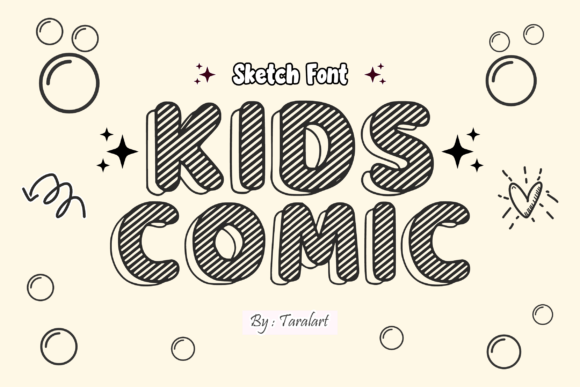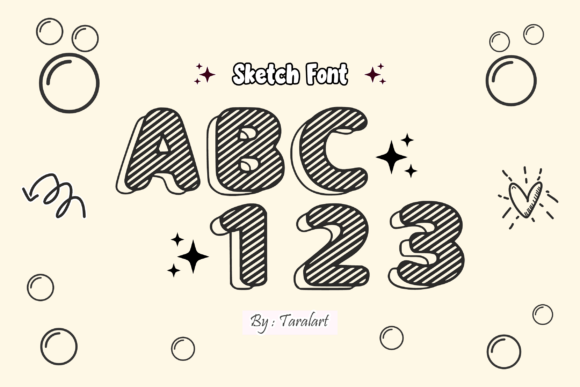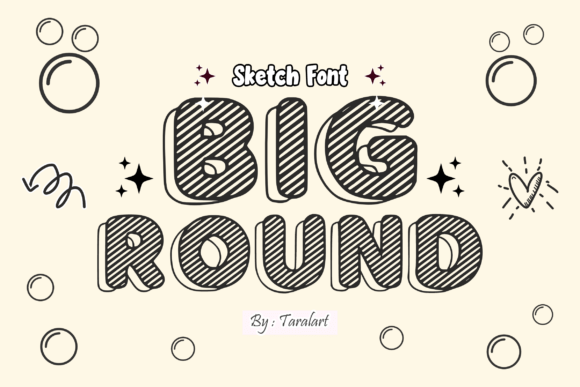
Introducing Biground Regular Font: The Ultimate Choice for Creative Designs
In the world of typography, fonts play a crucial role in conveying the tone and personality of a design. For designers and crafters looking for a unique and playful typeface, Biground Regular Font is an excellent choice. This avant-garde, ornamental font is specifically designed for the younger audience, making it perfect for a wide range of creative applications.
The Charm of Biground Regular Font
Every single character in Biground Regular Font exudes an adorable aura, making them instantly identifiable. The font’s distinctive design is characterized by its rounded edges, smooth curves, and endearing appearance. This charming font is sure to capture the attention of your audience and leave a lasting impression.
Ideal Applications for Biground Regular Font
Biground Regular Font is incredibly versatile and can be used in various design projects, including:
- Heat Transfer Designs: Create stunning apparel designs for t-shirts, hoodies, and other clothing items using Biground Regular Font. The font’s playful design ensures that your heat transfer designs will stand out.
- Ceramics and Mugs: Add a personal touch to ceramics like mugs, plates, and bowls with Biground Regular Font. The font’s adorable design makes it perfect for creating unique and functional items.
- Fabrics and Tote Bags: Design eye-catching tote bags, scarves, and other fabric products using Biground Regular Font. The font’s smooth curves and rounded edges ensure a beautiful and professional finish.
- Animations and Comic Book Titles: Biground Regular Font is an excellent choice for animations, comic book titles, and graphic novels. The font’s playful design adds a touch of excitement and energy to your project.
- Web Banners and Kids’ Greeting Cards: Create engaging web banners and kids’ greeting cards using Biground Regular Font. The font’s charming design is sure to delight your audience and make your design stand out.
Unleash Your Creativity with Biground Regular Font
Biground Regular Font offers endless possibilities for designers and crafters. With its unique and playful design, this font is perfect for:
- Kids’ Party Invitations: Create fun and colorful party invitations using Biground Regular Font.
- Social Media Graphics: Design engaging social media graphics, such as Facebook posts, Instagram stories, and Twitter headers, using Biground Regular Font.
- Branding and Packaging: Use Biground Regular Font to create eye-catching branding and packaging designs for kids’ products or services.
Tips for Using Biground Regular Font
To get the most out of Biground Regular Font, follow these tips:
- Pair with Other Fonts: Combine Biground Regular Font with other fonts to create a unique and visually appealing design.
- Experiment with Colors: Try out different color schemes to find the perfect match for your design.
- Keep it Simple: Don’t overcomplicate your design. Biground Regular Font is perfect for simple, yet effective designs.
Biground Regular Font is an excellent choice for designers and crafters looking for a unique and playful typeface. With its adorable design and versatility, this font is perfect for a wide range of creative applications. Unleash your creativity and take your designs to the next level with Biground Regular Font.